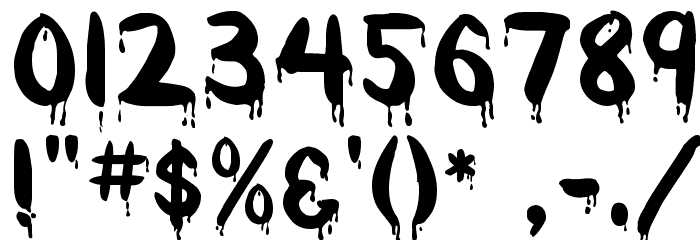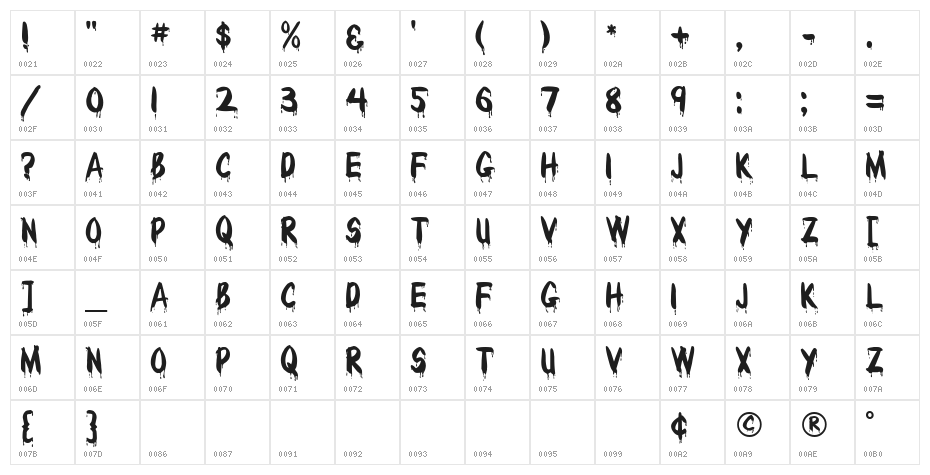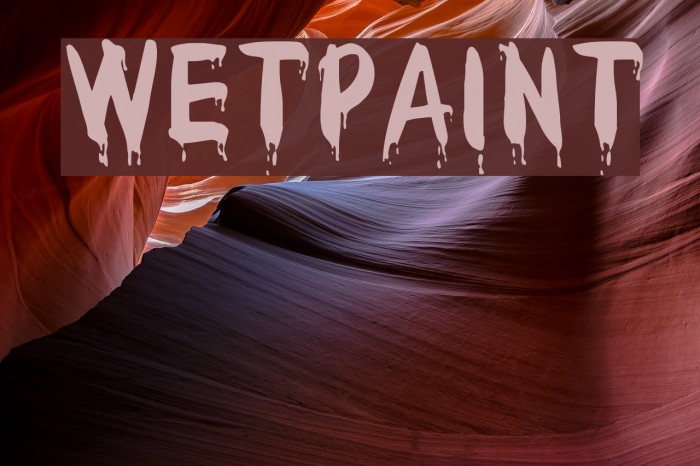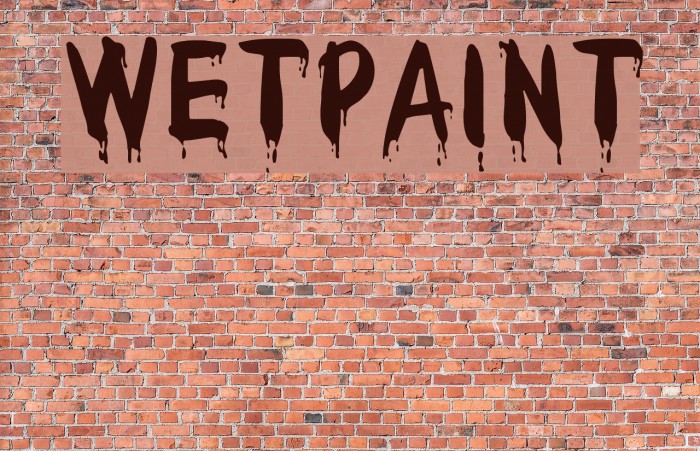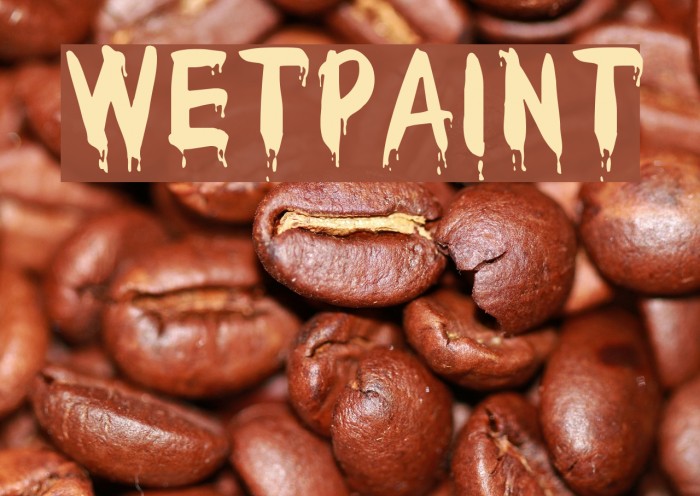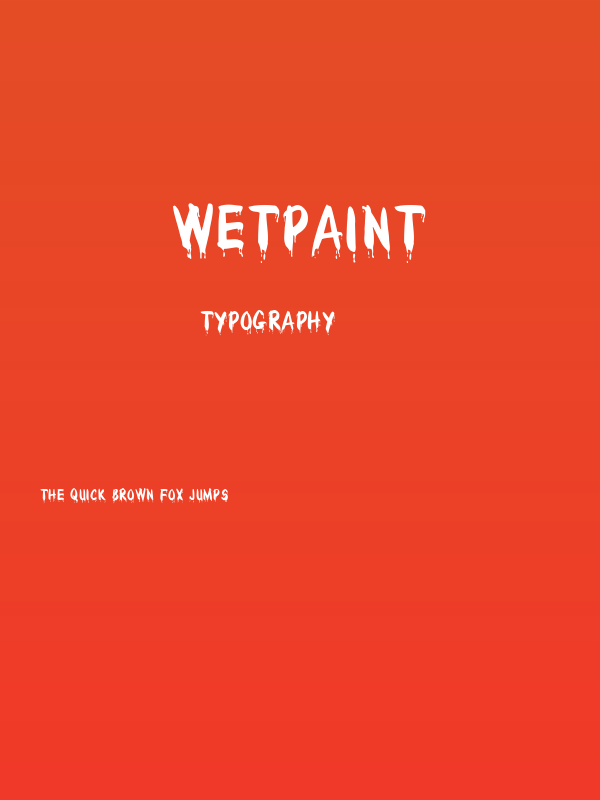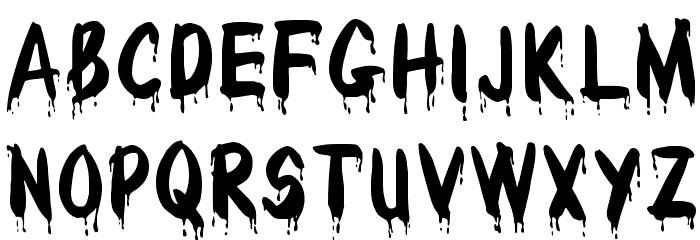
WetPaint Font
WetPaint Description
This font features a bold and dramatic style, reminiscent of wet paint dripping down a surface. Each character is designed with a unique dripping effect, giving it a dynamic and edgy appearance. The letters are bold and slightly irregular, adding to the impression of freshly applied paint. This font captures attention with its distinctive and artistic flair, making it ideal for creative projects that require a strong visual impact. The overall design is playful yet intense, perfect for themes that embrace creativity and boldness.
Use CaseHeadlines, Posters, Creative Designs
Proposed ProjectsIdeal for art-themed posters, graffiti-inspired designs, Halloween events, or any project needing a bold, creative touch.